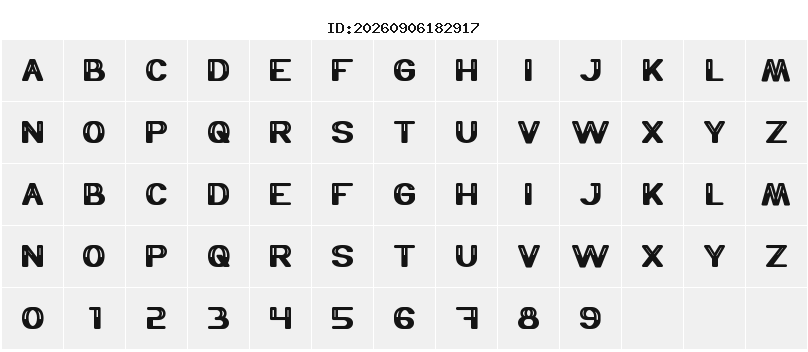
THERMOMETER Preview
• Font Name: THERMOMETER
• Full Font Name: THERMOMETER
• Version: Version 1.00 September 26, 2014, initial release
About THERMOMETER.ttf
THERMOMETER.ttf is a modern, elegant sans-serif font designed for ultimate readability and visual harmony. Perfect for branding, headlines, web design, and print materials.